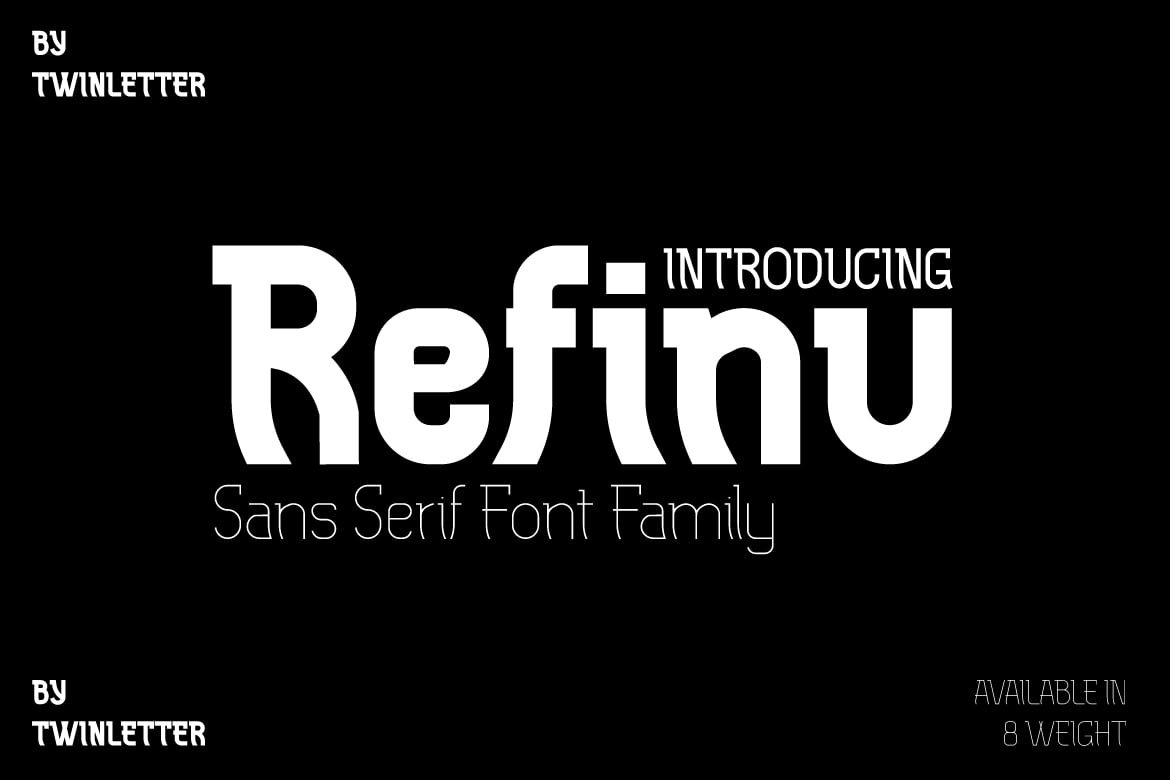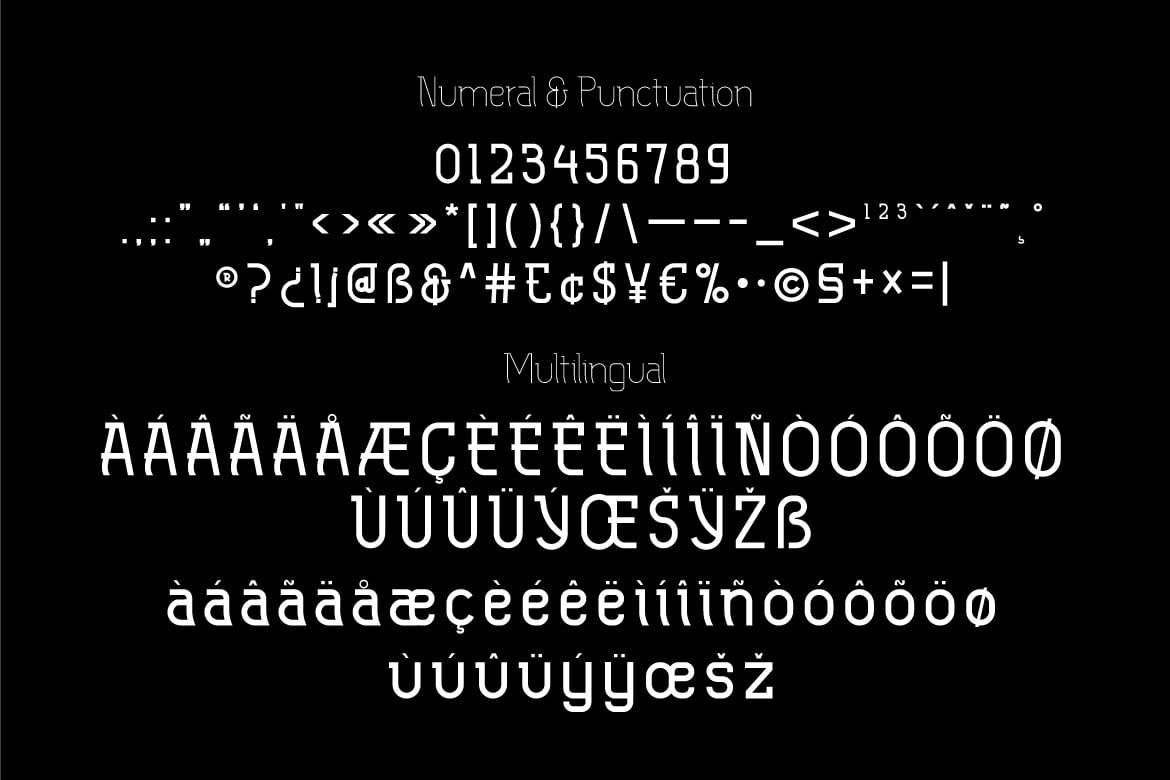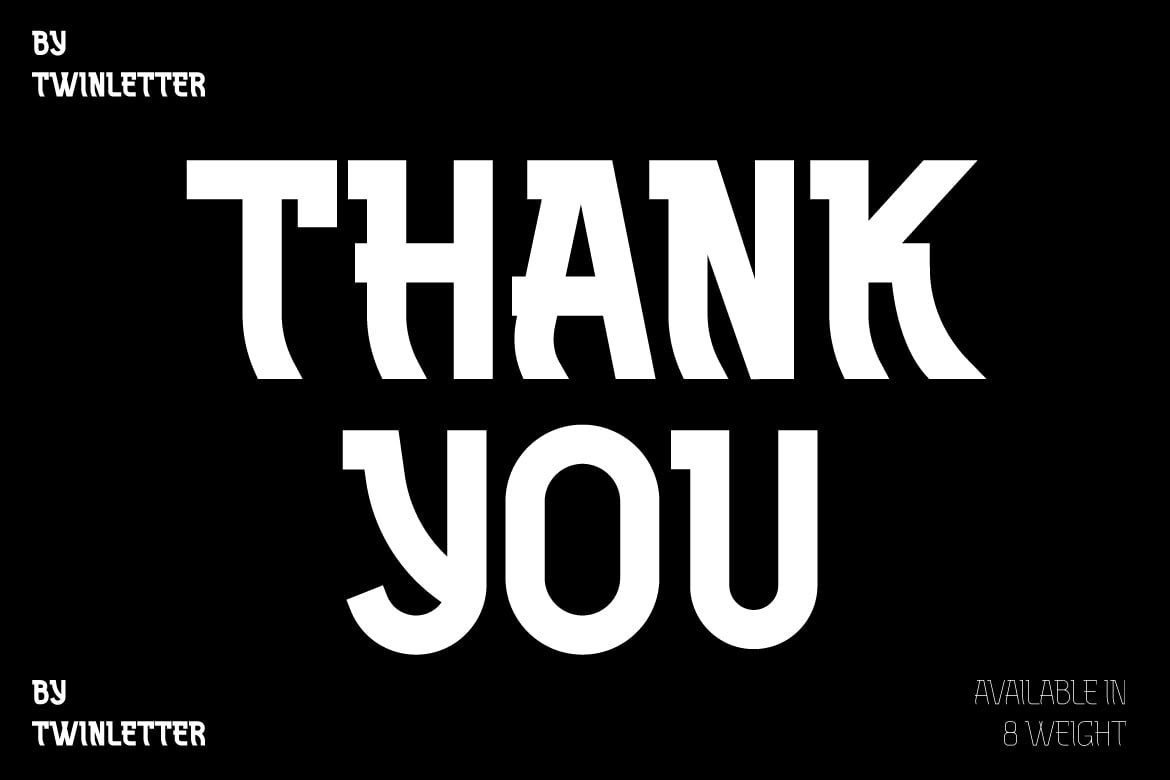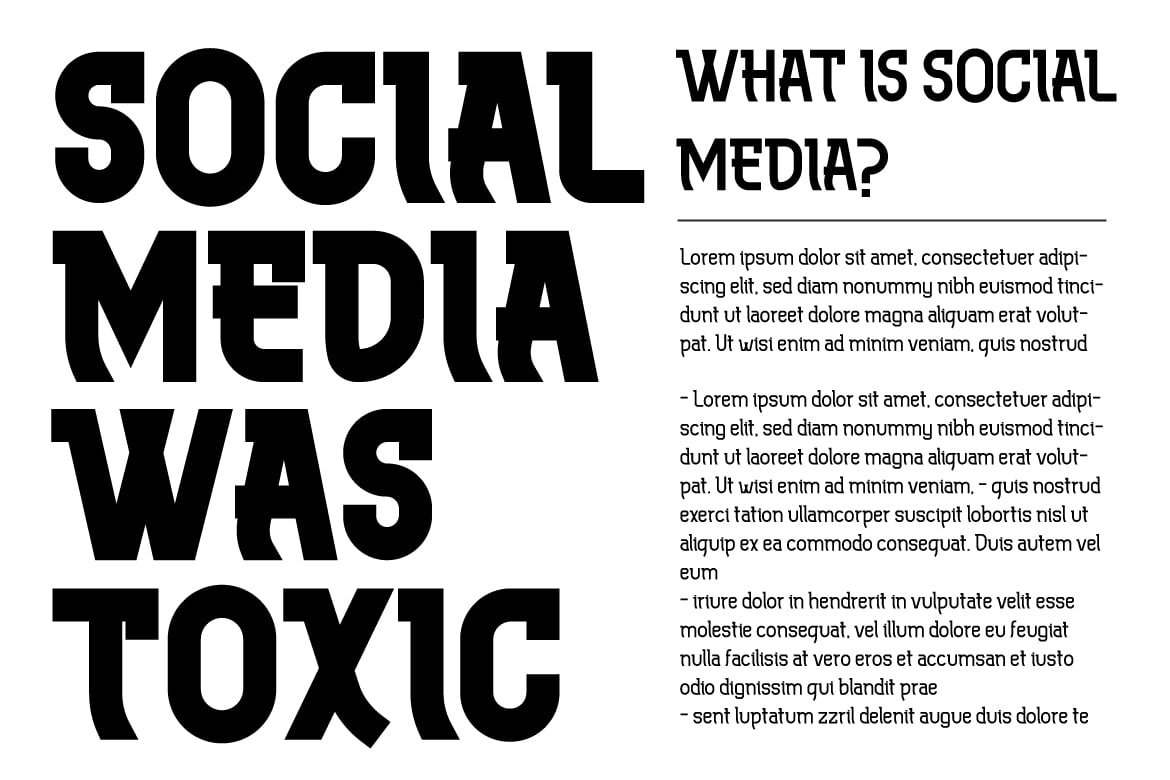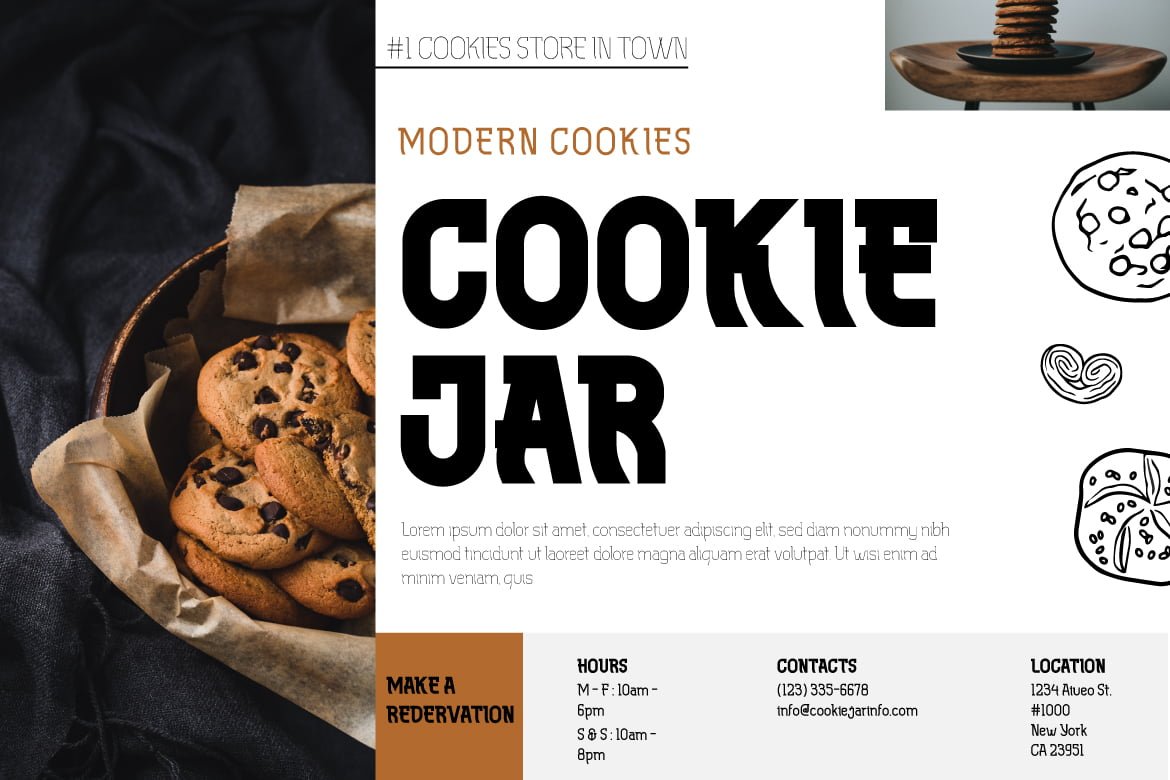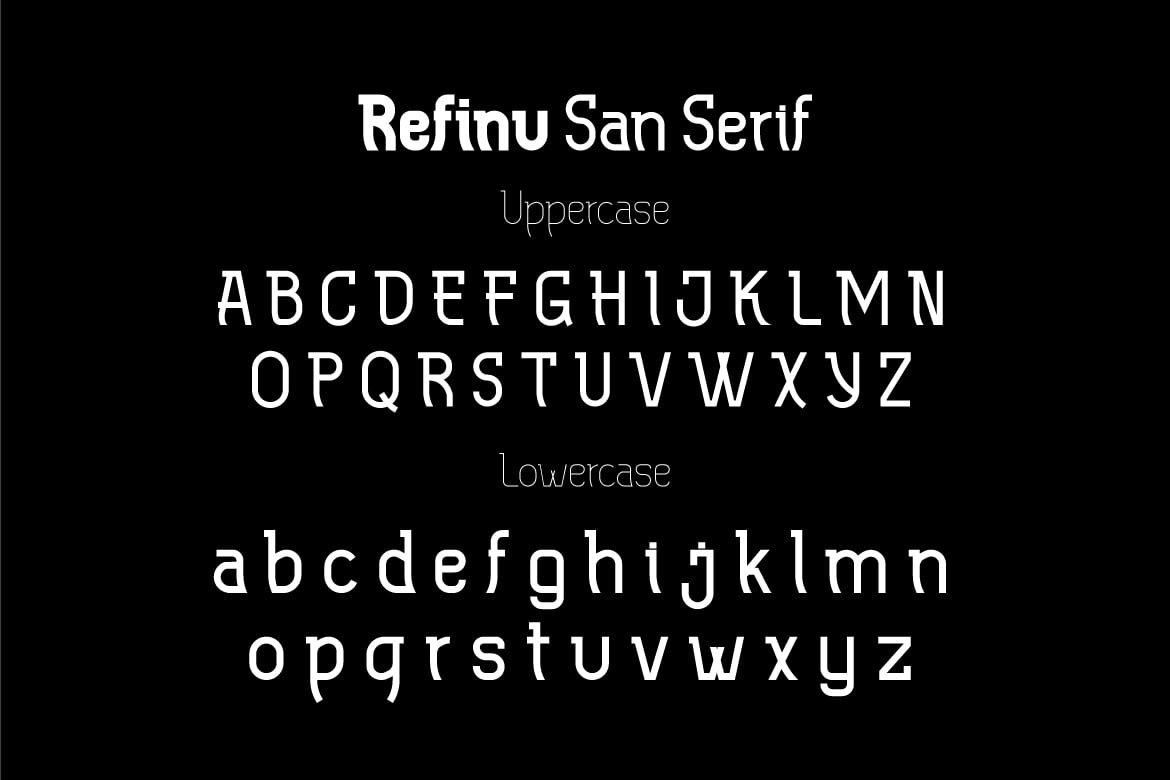
Refinu
This font is really interesting for you to use in various sorts of your projects, your project will be good and draw a lot of people’s attention. Refinu san serif font with a unique shape but still comfortable and easy to read. This font is also quite versatile and simple to use, allowing you to complete your tasks swiftly. But, more importantly, using this typeface will ensure that your project is remembered by your entire audience.
• Fonts include multilingual support for; Afrikaans, Albanian, Croatian, Czech, Danish, Dutch, English, Estonian, Finnish, French, German, Hungarian, Italian, Norwegian, Polish, Portuguese, Slovak, Slovenian, Spanish, Swedish